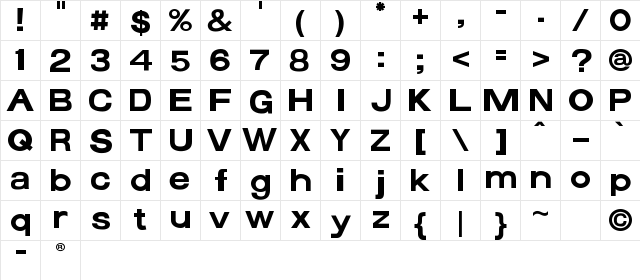
FontCreator Program 4-1 Regular
Design Context for FontCreator Program 4-1 Typeface
FontCreator Program 4-1 offers clean, dependable letterforms without strong stylistic allegiance, making it a practical choice for designers who need flexibility.